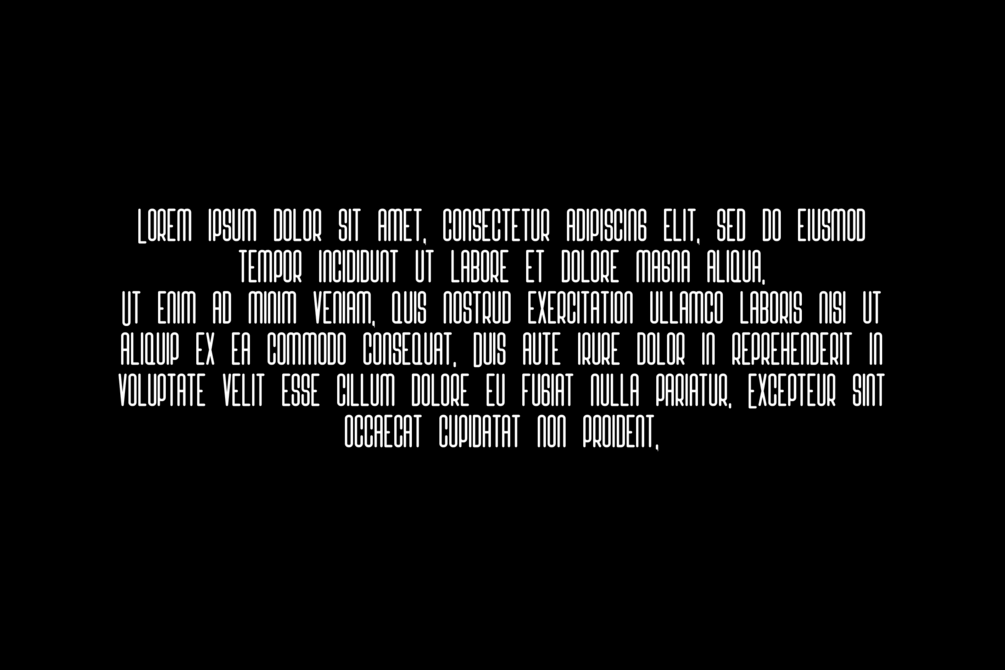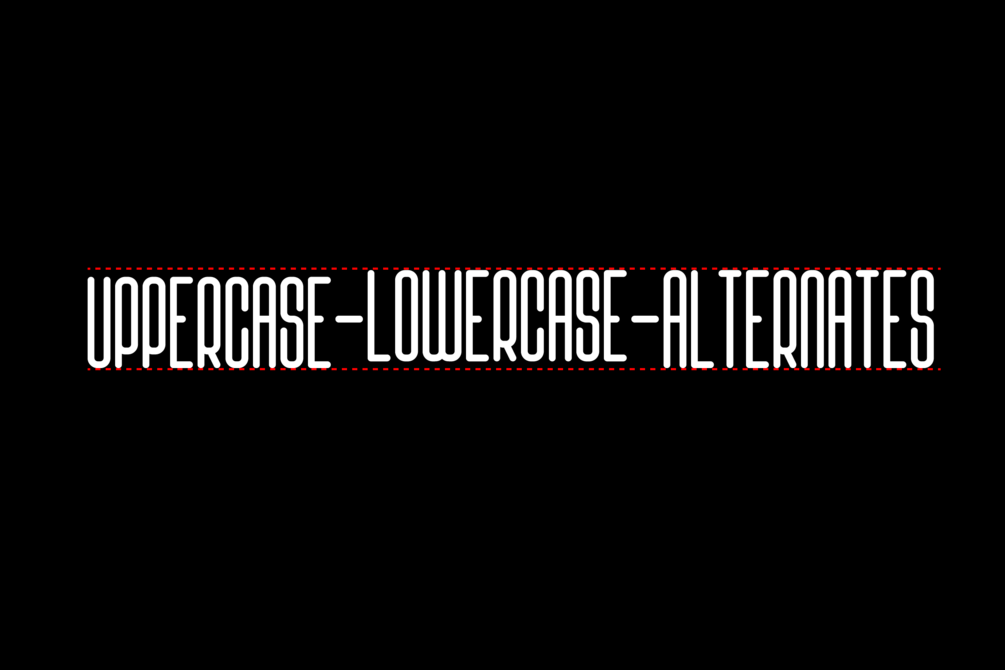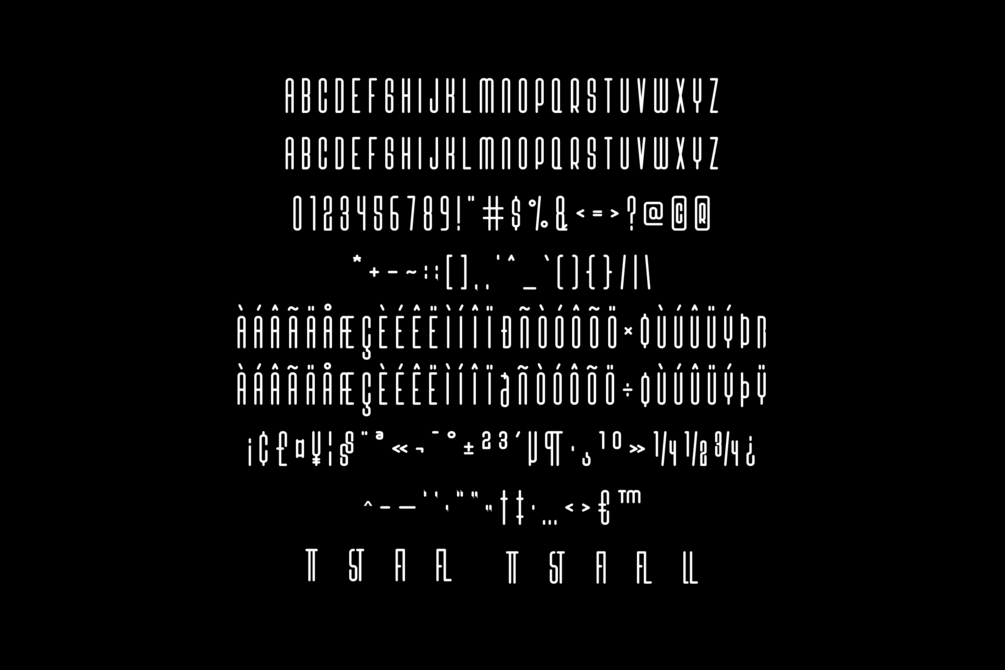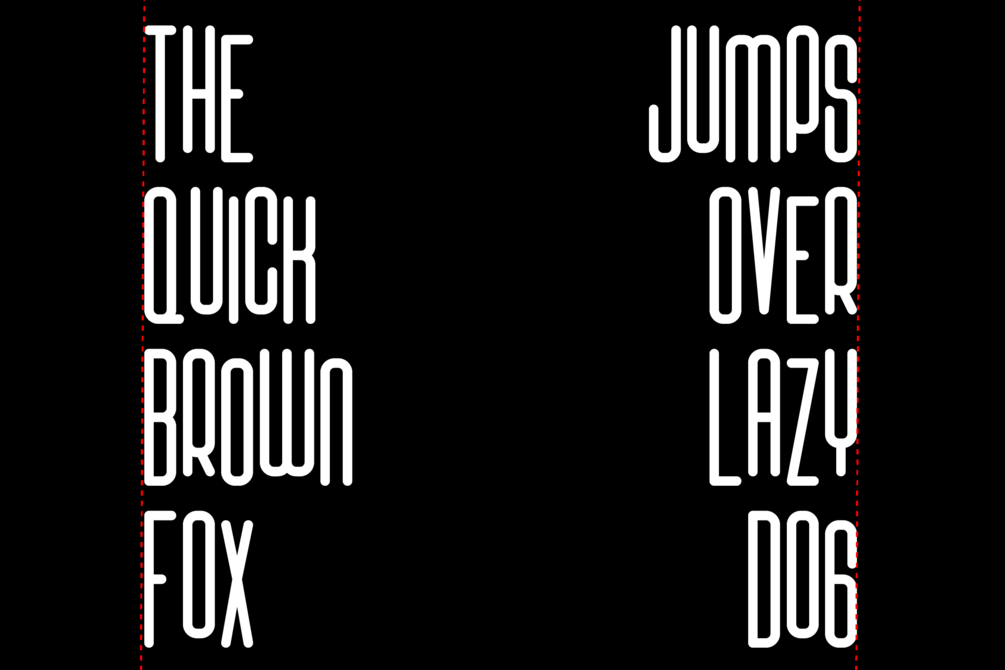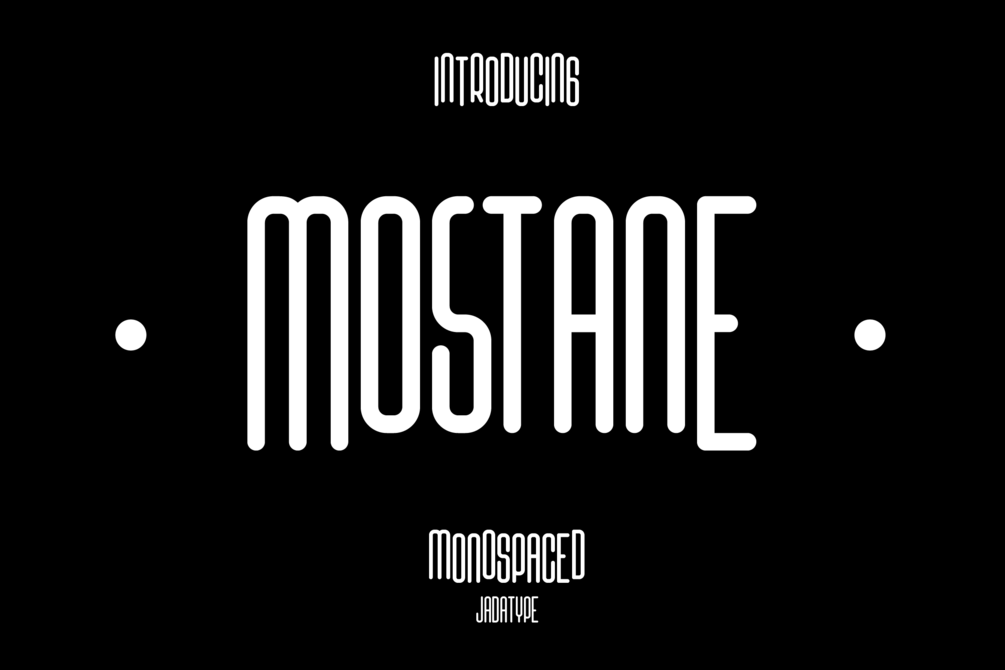
Mostane Font
Mostane is a display font that comes with a monospaced style. suitable for branding, social media, and so on. contains standard English letters, numbers, punctuation, and several accents that support multilingualism.
• Regular & Italic